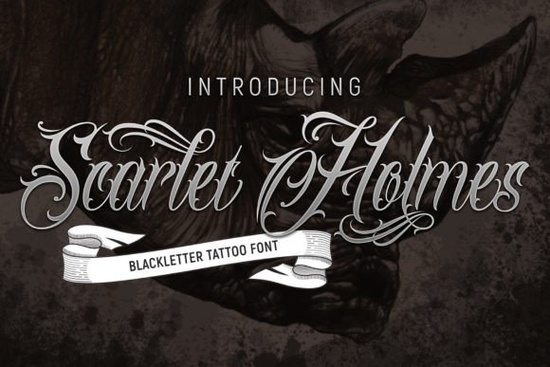
Looking for a blackletter tattoo font that works for modern branding? Scarlet Holmes Font offers a contemporary twist on traditional blackletter, making it perfectly at home on logos, t-shirt designs, posters, flyers, and other brand identity items. Add it confidently to your projects, and you will love the results. Whether you’re a print-on-demand seller or a small business owner, this typeface brings a bold, readable edge without sacrificing legibility.
What makes Scarlet Holmes Font different from traditional blackletter?
Classic blackletter fonts can feel heavy or too medieval for modern audiences. Scarlet Holmes keeps the gothic structure but adds clean lines and a tattoo-inspired rhythm. The letters have a slight hand-drawn feel, which makes them look authentic on apparel and posters. It’s not overly ornate, so you can still read the text quickly—ideal for logos where clarity matters.
Another difference is its versatility. Use it for headlines, short quotes, or even single-word designs. The uppercase letters have strong vertical strokes, while lowercase forms are more compact. This balance lets you mix case for emphasis. For example, pairing an all-caps word with lowercase details creates a dynamic look without extra work.
How can I use Scarlet Holmes Font in my projects?
Because it’s a blackletter tattoo font, the first thing that comes to mind is t-shirt and hoodie designs. A central word or phrase in Scarlet Holmes instantly gives apparel a streetwear or alternative vibe. You can pair it with simple icons, a jagged border, or distressed textures.
- Logos & branding – Use it for the main wordmark of a shop, a studio, or a personal brand. Keep the rest of the identity clean and minimal to let the font shine.
- Posters & flyers – Because the font is bold, it works well for event posters, especially for music, art shows, or community gatherings. Add a subheading in a simple sans-serif to balance the weight.
- Social media graphics – Thumbnails and banners with Scarlet Holmes stand out in a feed. Just make sure the background is high-contrast (dark on light or light on dark).
- Packaging & stickers – Short product names or taglines in this font give packaging a handcrafted, edgy look. Combine with a clean bar code area.
If you’re a print-on-demand seller, try using Scarlet Holmes on mugs, phone cases, or tote bags. The stroke thickness ensures the text stays readable even when printed small.
Which other blackletter fonts work well with Scarlet Holmes?
When you need variety for a multi-word design, or if you want to offer different styles in your shop, consider pairing Scarlet Holmes with related blackletter fonts. For a more decorative and swirly option, Angelicha Font adds a romantic, calligraphic feel. It contrasts nicely with the boldness of Scarlet Holmes. Another great companion is Blinks Shake Font, which has a rough, distressed appearance. Together they can create a layered, grunge aesthetic on posters or album covers.
You can also use them on the same project: for example, put the main headline in Scarlet Holmes and a supporting line in Blinks Shake Font (if you need a distressed look) or in Angelicha Font for a softer contrast. That kind of pairing makes your design feel intentional and professional.
Is Scarlet Holmes Font suitable for small sizes?
Because the strokes are relatively thick and the counters (the enclosed spaces inside letters) are open, Scarlet Holmes holds up well at small sizes—like on business cards, social media icons, or small product labels. However, I would avoid setting long paragraphs in it. Use it for short, impactful text. For body copy, a simple sans-serif like Helvetica or Montserrat will keep the reading comfortable.
If you are designing for merchandise that will be printed at 3″ x 3″ or smaller, test the font at that size first. In most cases, Scarlet Holmes will remain legible because of its generous x-height and clean shapes.
Checklist before you use Scarlet Holmes Font
- Test the font at your intended size (especially for small products).
- Pair it with a clean, neutral companion font for long text.
- Use high-contrast backgrounds (black on white or white on dark) for maximum impact.
- Consider adding a subtle texture or outline effect to reinforce the tattoo style.